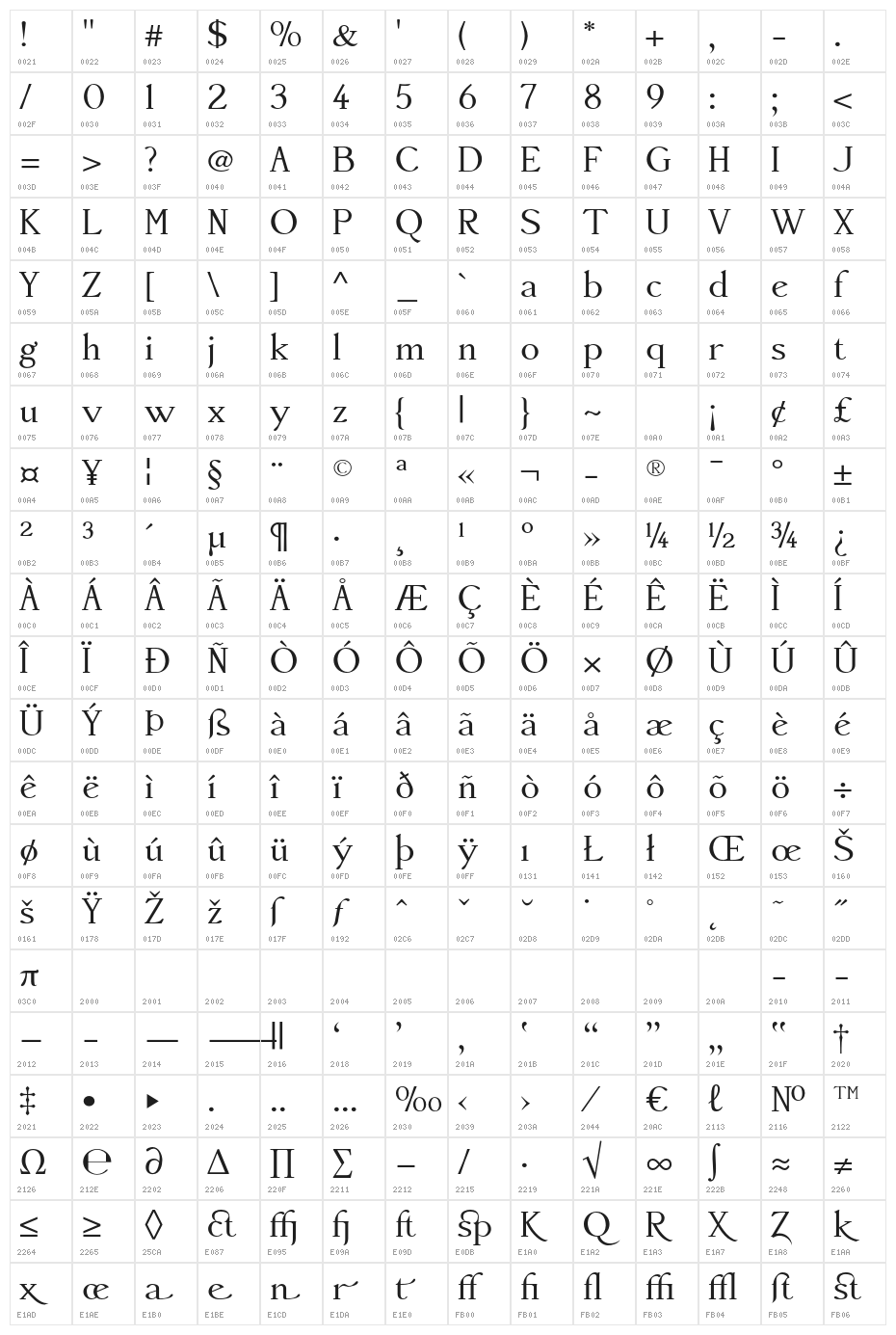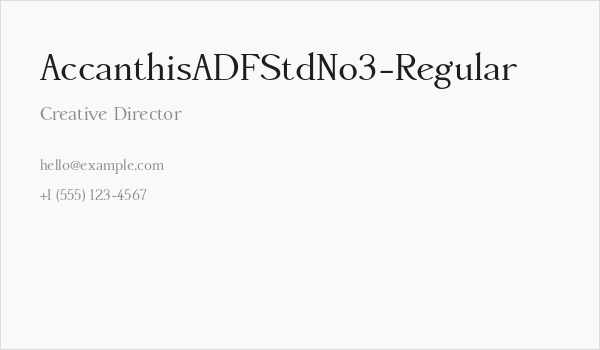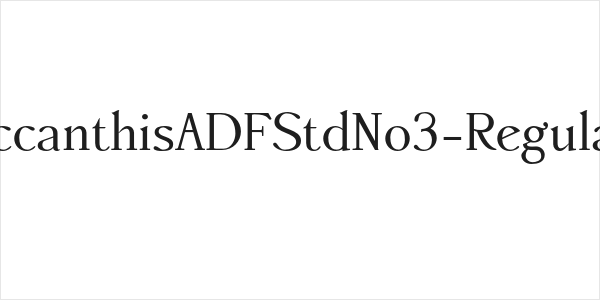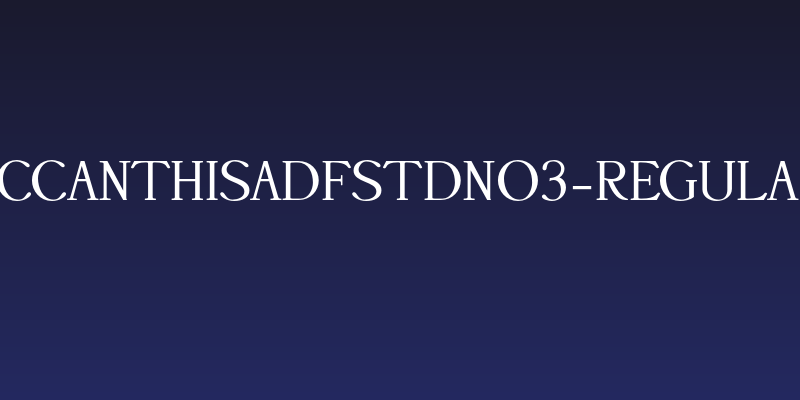
AccanthisADFStdNo3-Regular Font
AccanthisADFStdNo3-Regular Description
This font features a classic serif design with elegant and refined strokes. The uppercase letters are well-proportioned, exhibiting a traditional style that is both sophisticated and timeless. The lowercase letters maintain a consistent flow, with gentle curves and sharp serifs that enhance readability. Numbers are clear and distinct, making them suitable for formal documents. The special characters are crafted with precision, ensuring they complement the overall aesthetic. This font is ideal for projects that require a touch of elegance and formality.
| Proposed Projects | Ideal for formal documents, invitations, book covers, and editorial design. |